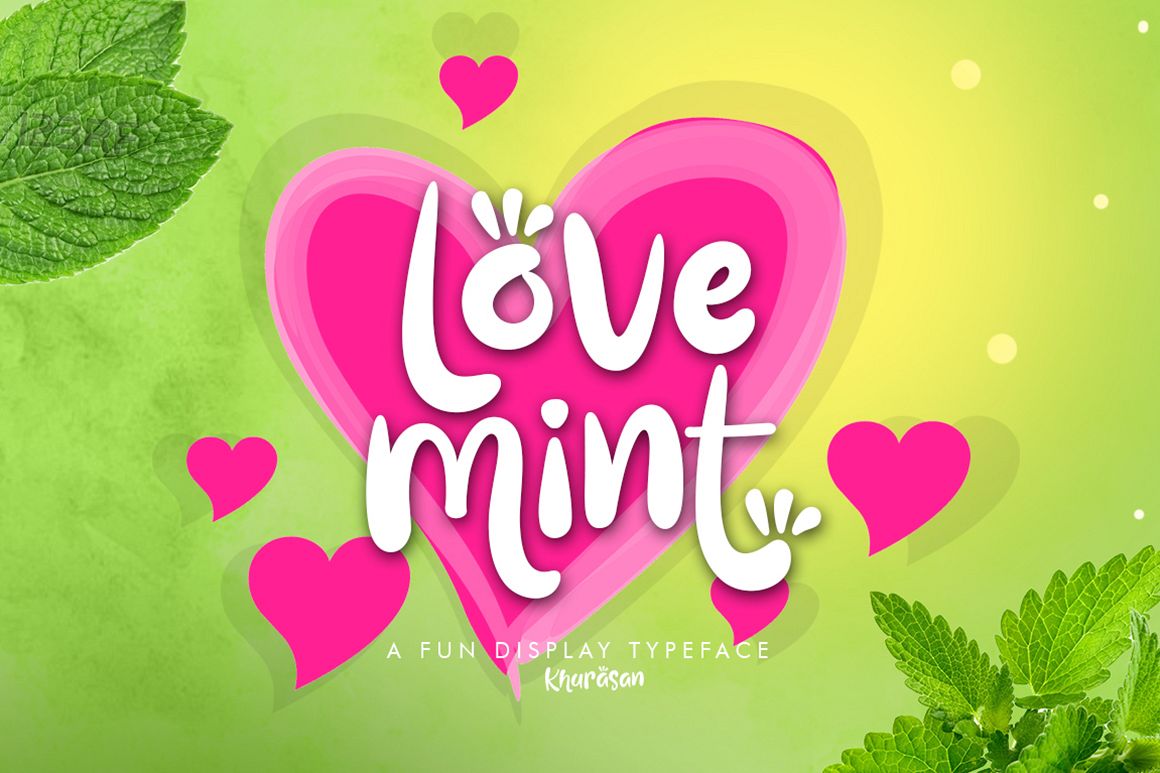
Introducing, Love Mint font a fun bold display typeface with cheerful theme for your fun project. Love Mint font suitable for logo, branding, greeting card, poster and any design that you create.